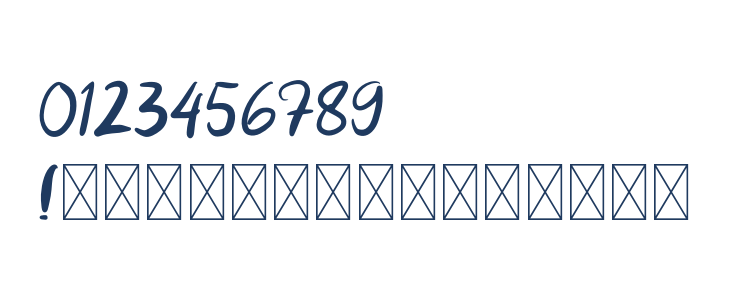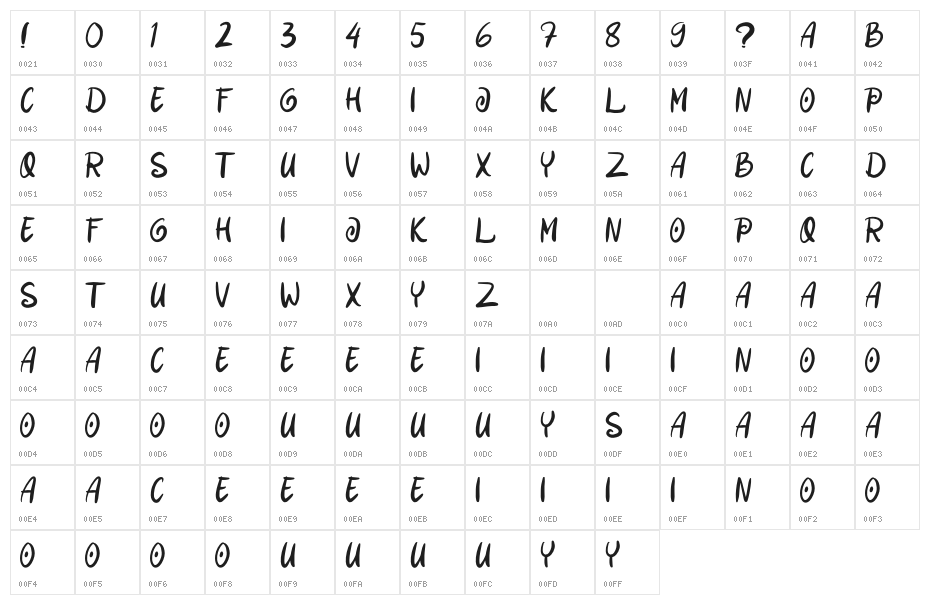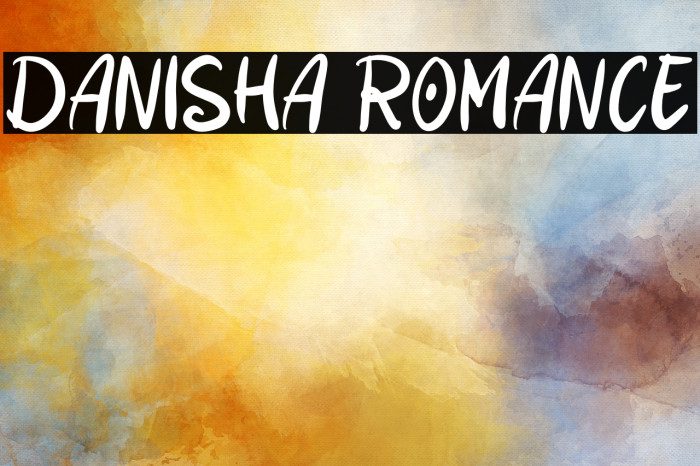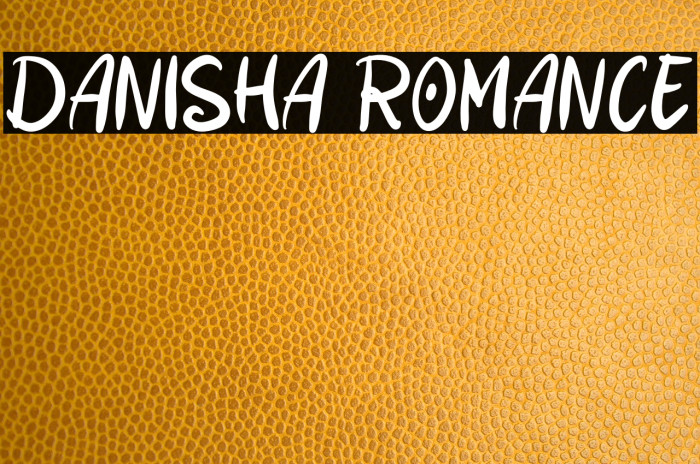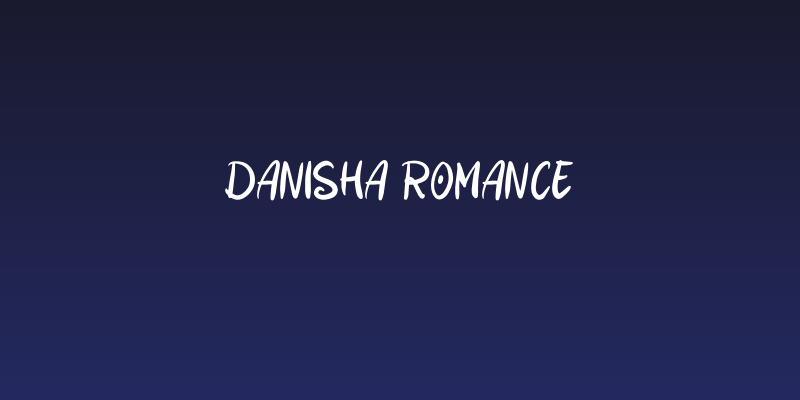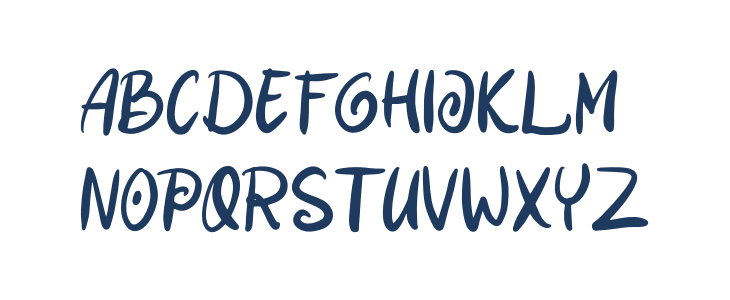
Danisha Romance Font
Danisha Romance Description
This font features a bold and expressive script style with a playful and dynamic flow. The uppercase and lowercase letters are crafted with a sense of movement, incorporating smooth curves and elegant swirls. The numbers maintain the same lively character, ensuring consistency across all characters. The font exudes a sense of creativity and spontaneity, making it ideal for projects that require a personal touch. The strokes are thick and confident, providing a strong visual impact while maintaining legibility. This font is perfect for adding a touch of romance and flair to any design.
| Proposed Projects | Ideal for wedding invitations, greeting cards, branding, and creative projects that require a personal and romantic touch. |